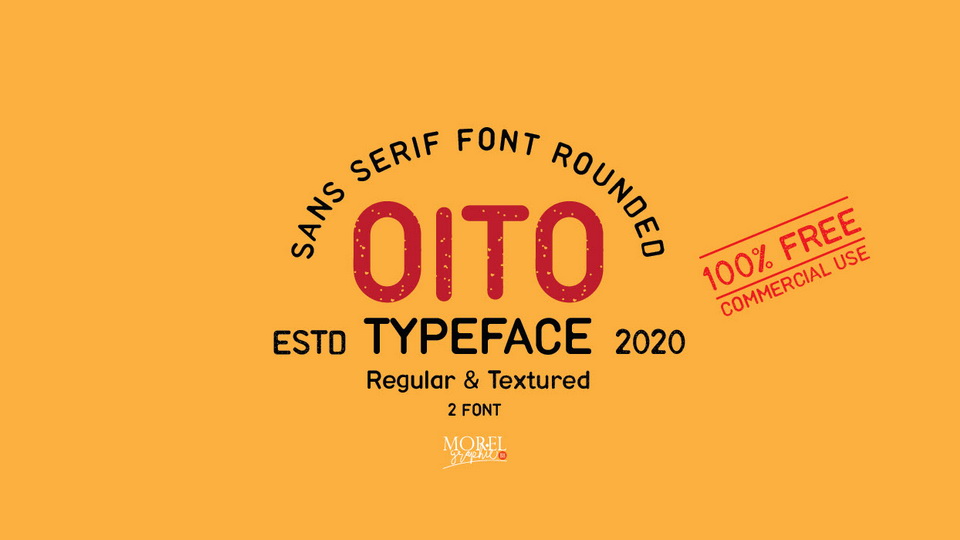
Download Oito typeface, a clean and simple vintage sans serif font family in two styles: Regular and Textured. Oito is perfect for vintage logo designs, headers, posters and small text blocks.